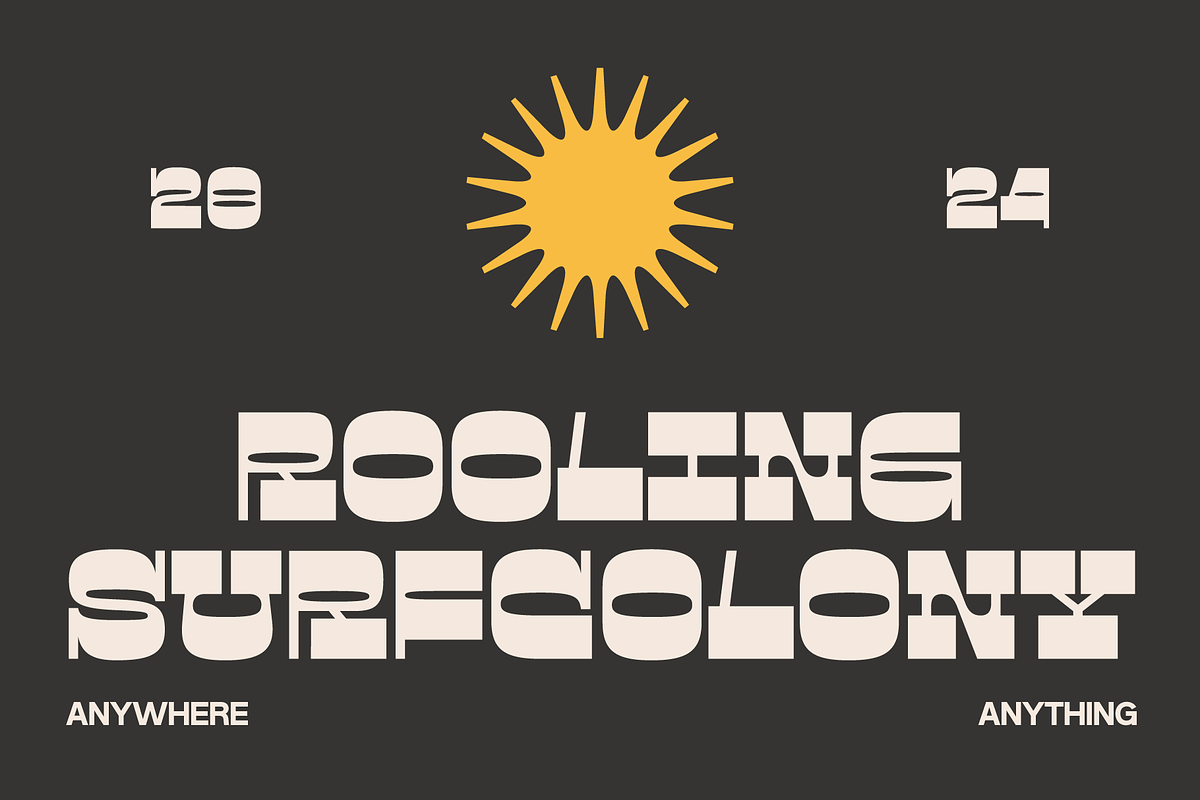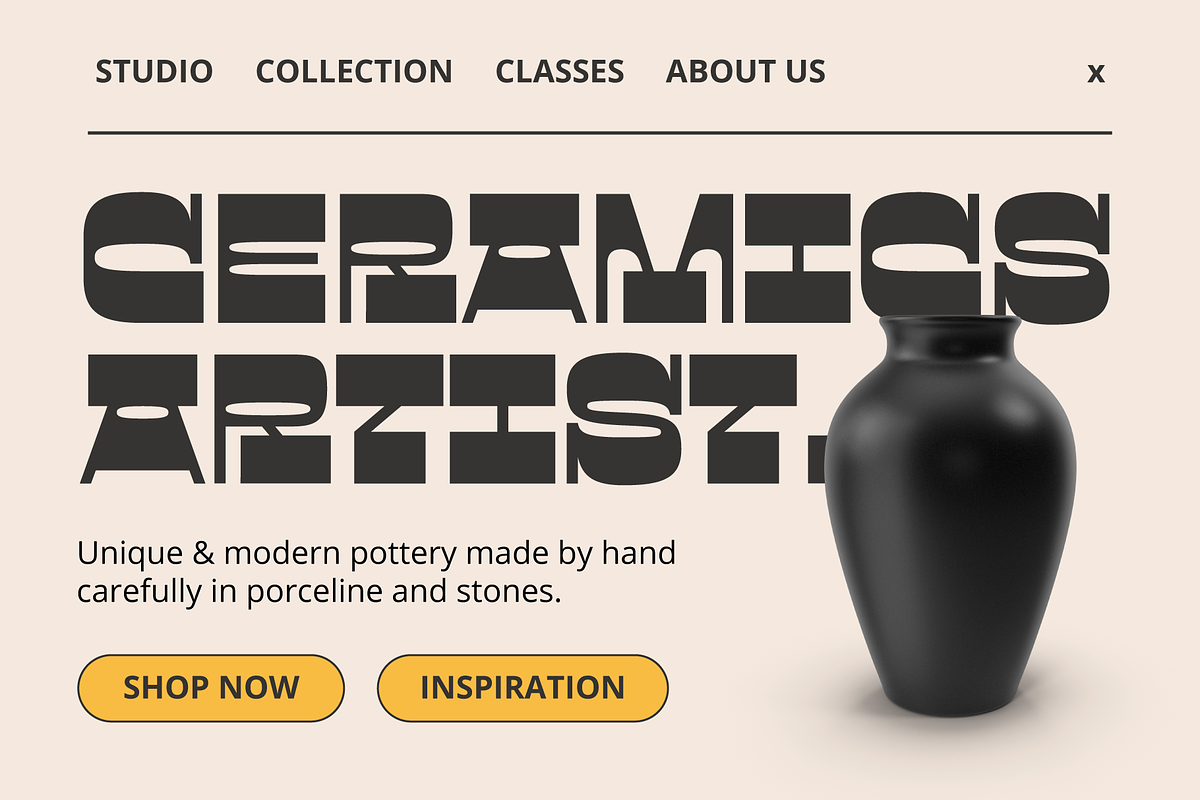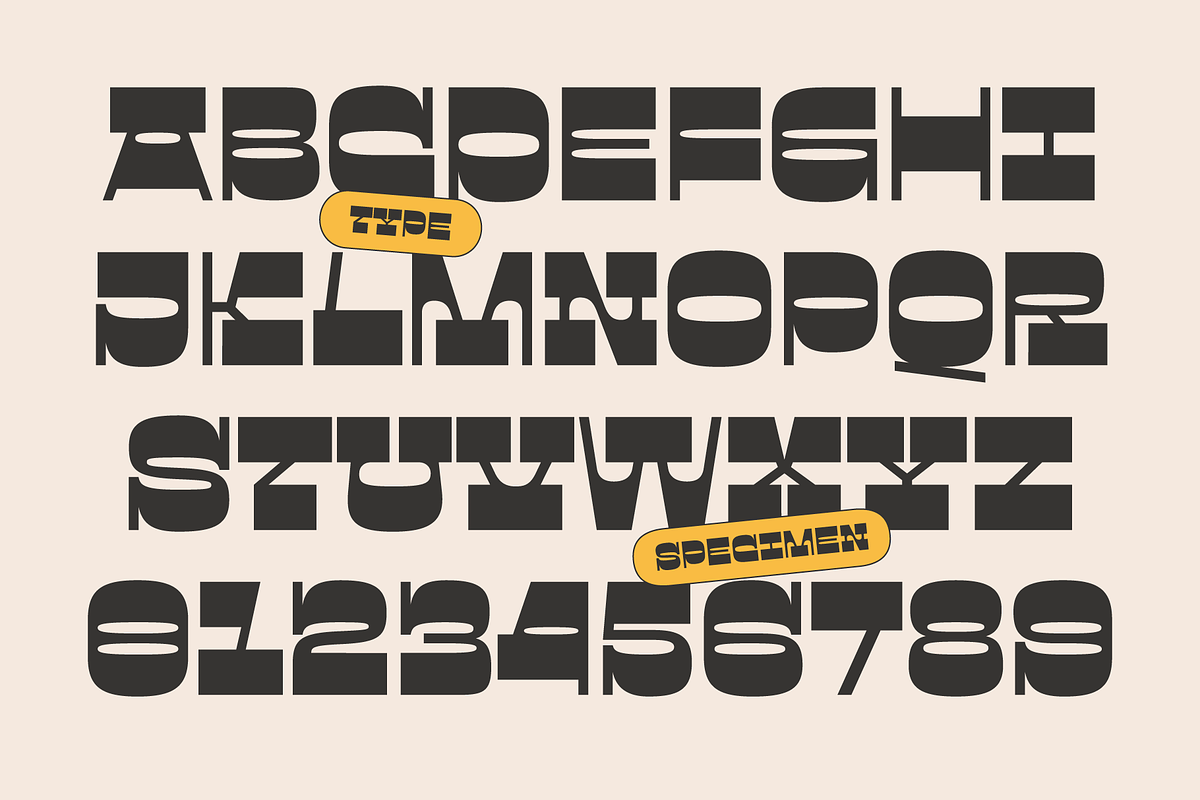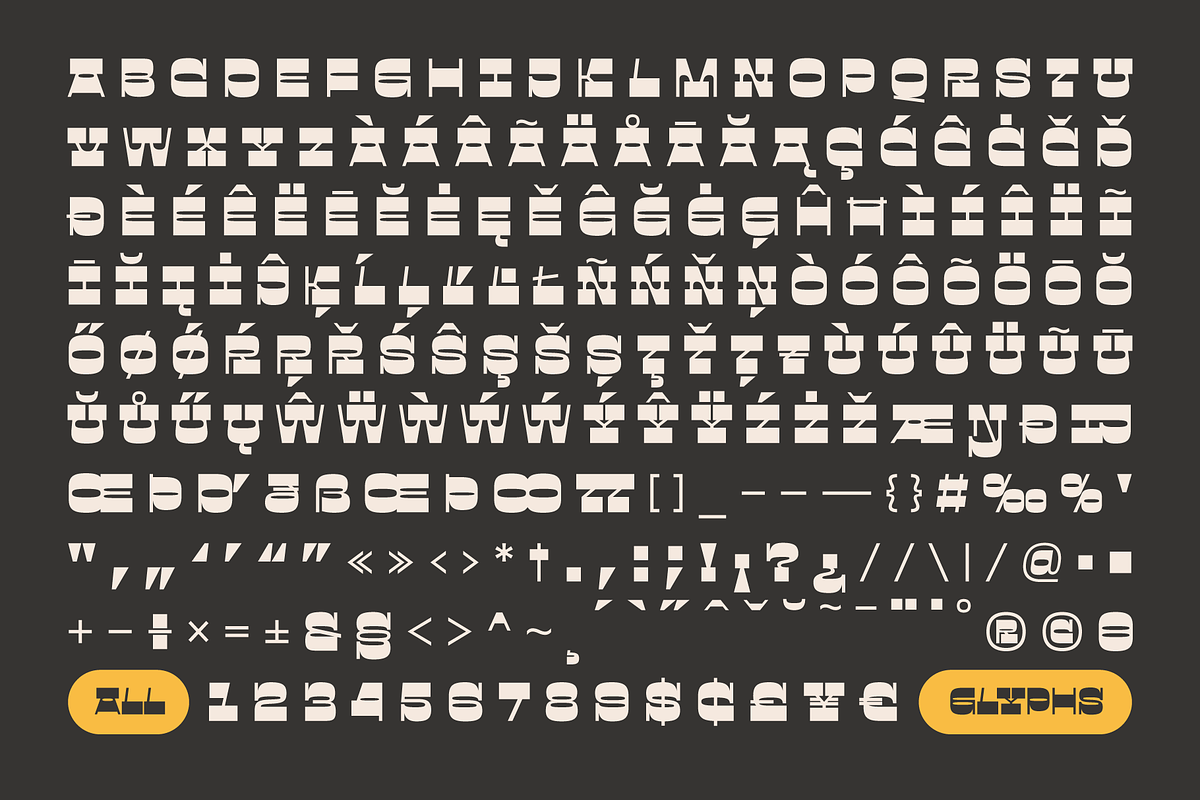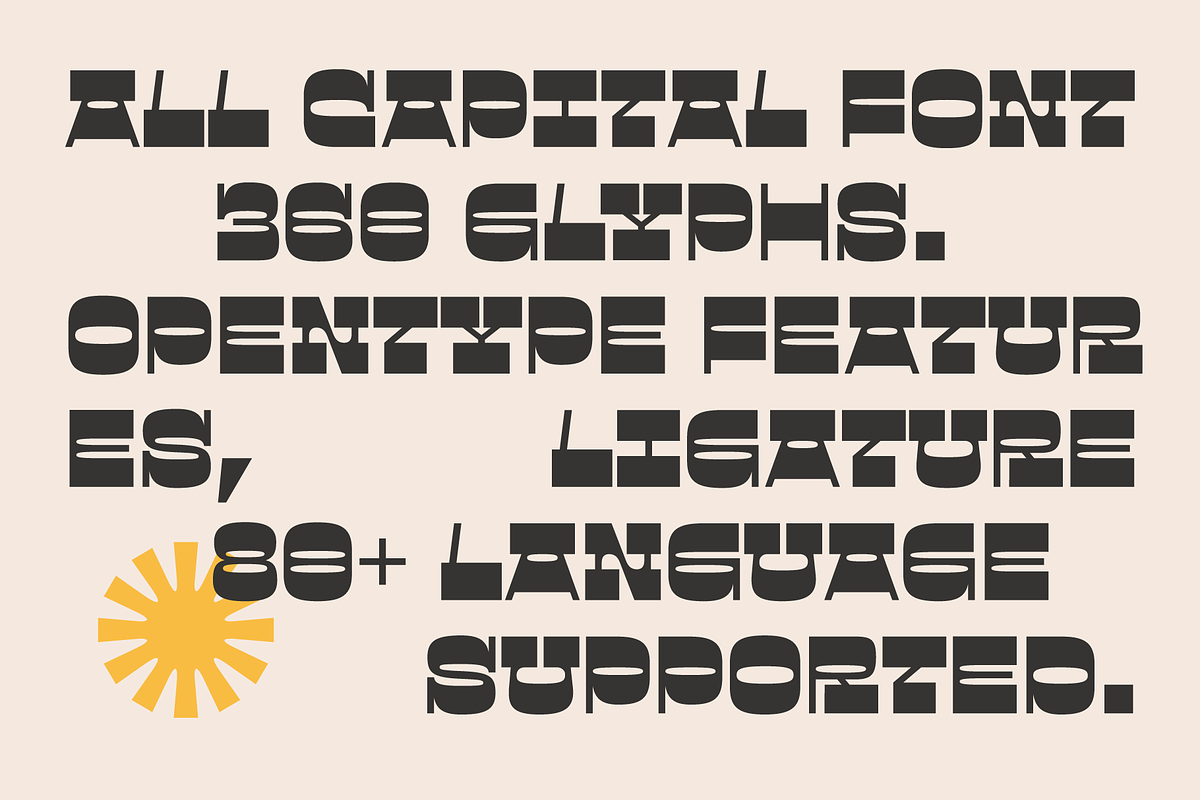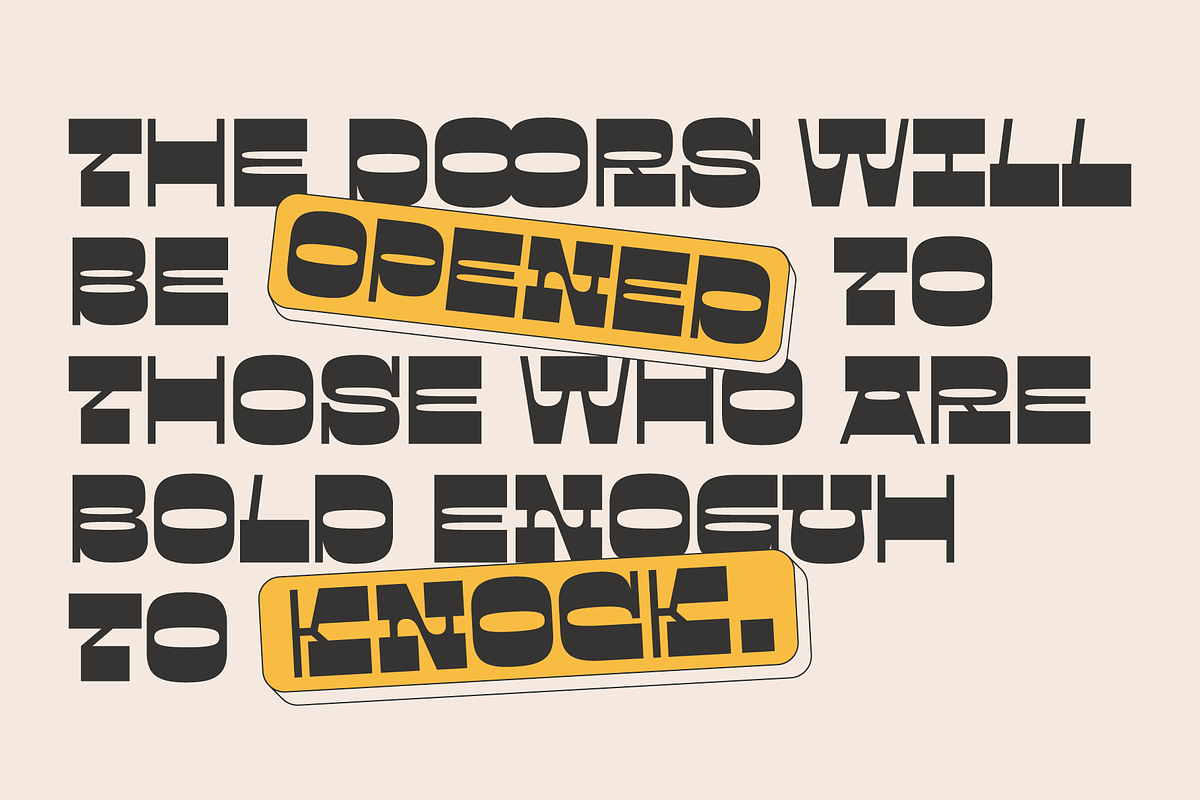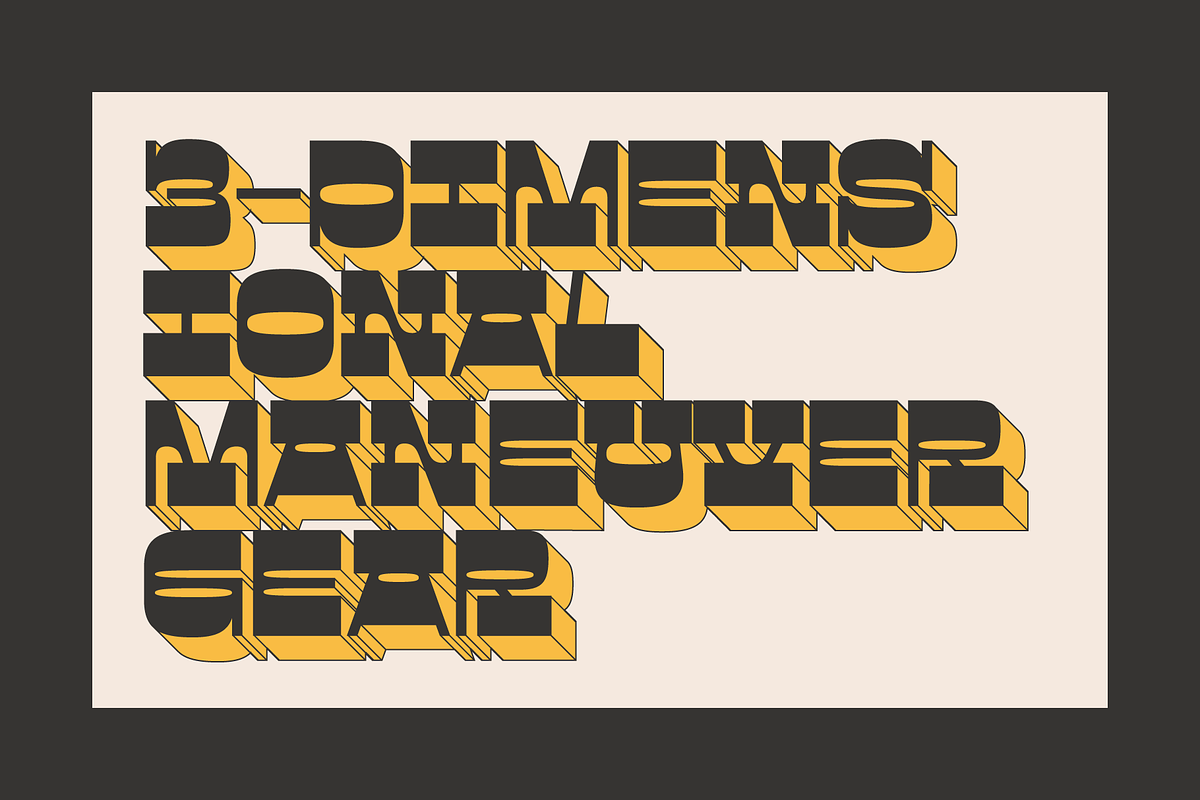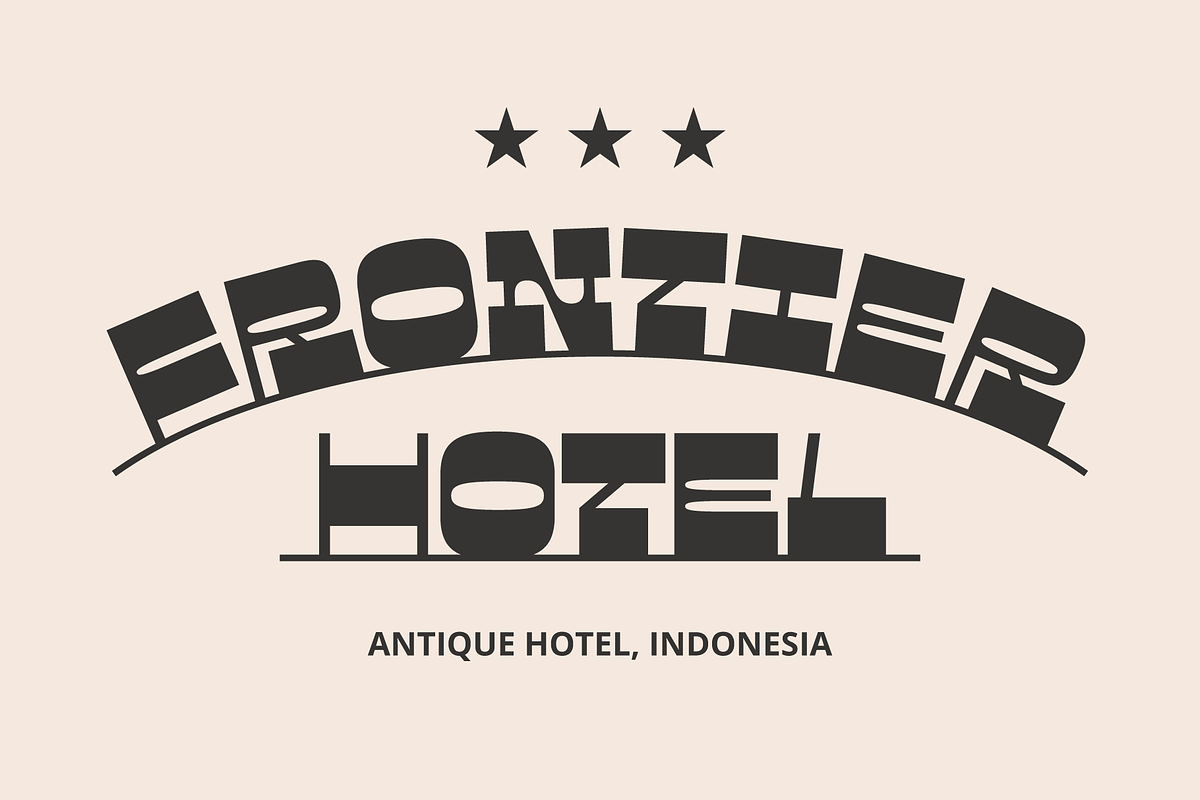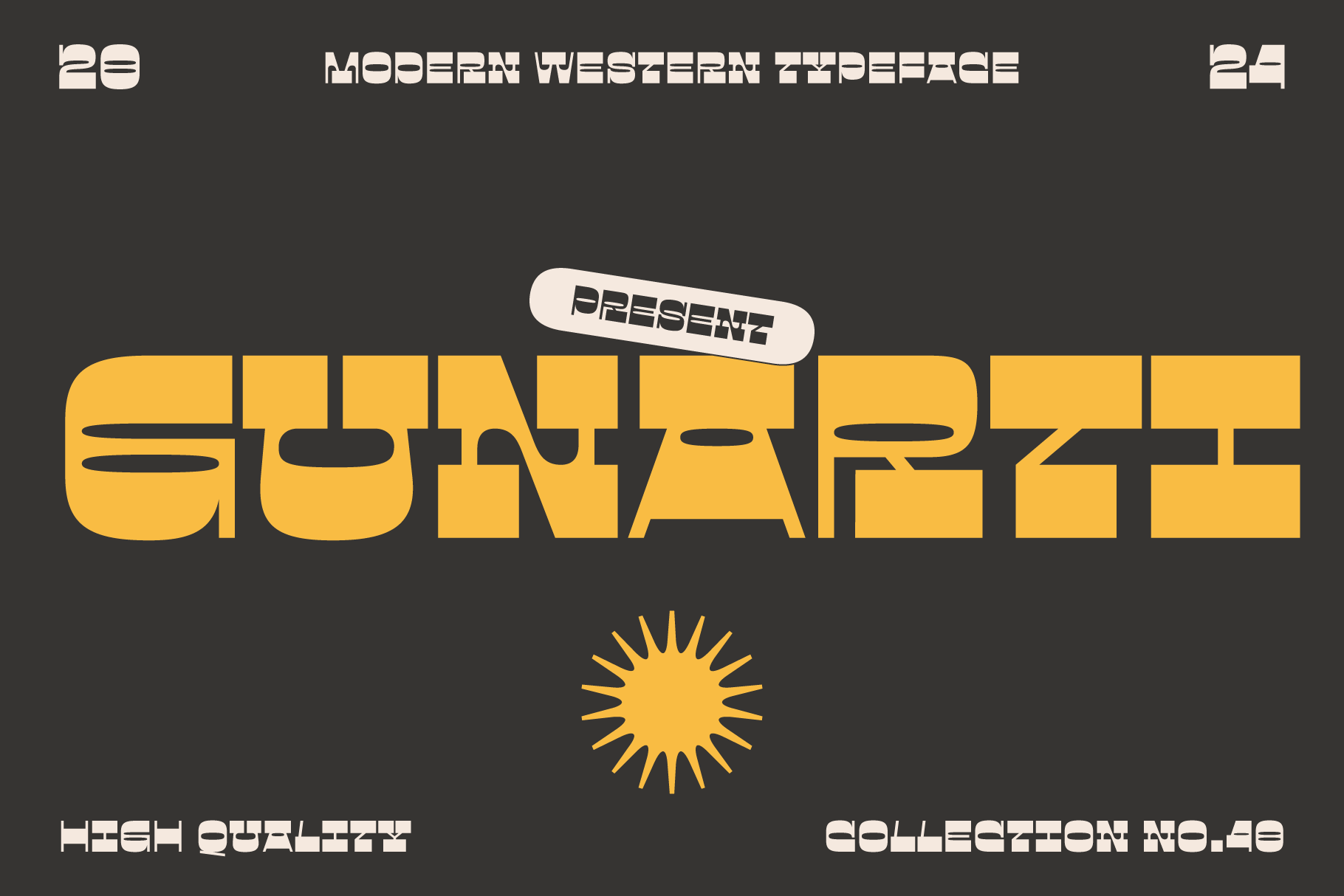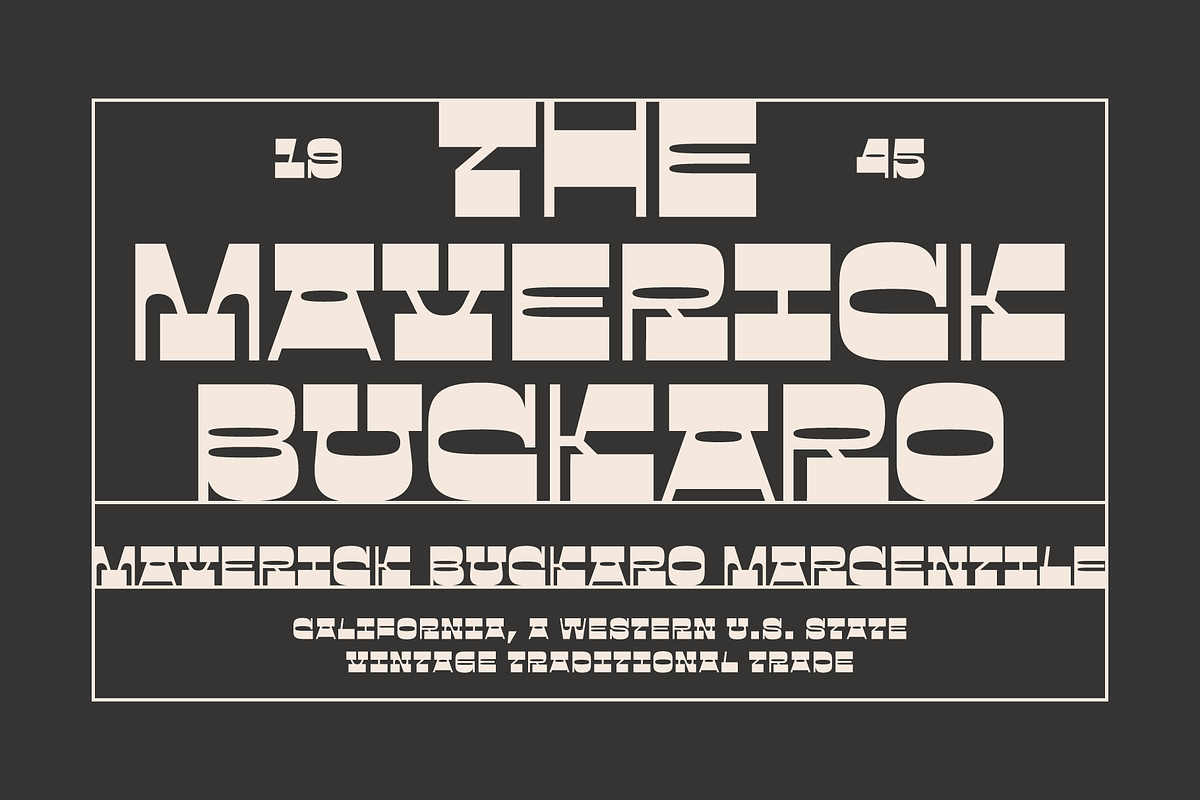
Gunarti – Wide Western Font
Wide Western Font Gunarti is a bold typeface that fuses reverse contrast, and slab serif styles into a unique modern font. Inspired by retro western slab serifs with subtly rounded interiors, Gunarti exudes a quirky personality perfect for cartoons and a laid-back design aesthetic. Its high contrast between thick and thin strokes makes it ideal for headlines, titles, posters, logos, and branding.
Designed for display sizes, Gunarti offers a contemporary look for any project. With opentype features, Extended Latin support, and 360 glyphs covering 85+ languages, Wide Western Font Gunarti ensures impact and adaptability in your designs, whether for cartoons, stickers, merch, Instagram, or any creative endeavor.
- All Capital, Numbers, Punctuation
- Opentype Features
- Extended Latin
- 85+ Language Supported